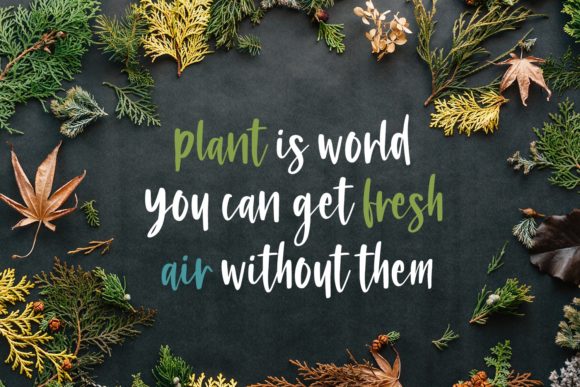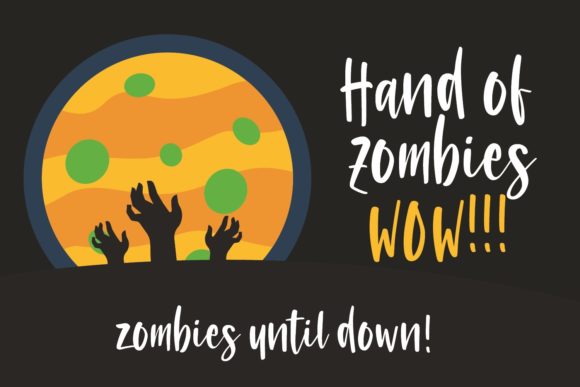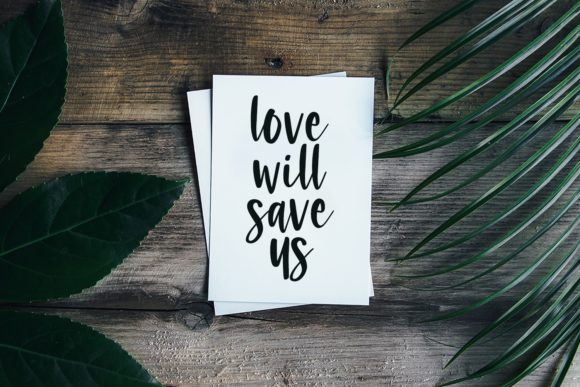
Introduction to Pizza Travel Font
Who hasn’t been inspired by a perfectly crafted design on social media, only to frantically search for the exact font used in the post? I know I have! Recently, I stumbled upon the adorable Pizza Travel Font, and I just couldn’t resist sharing its charm with fellow designers. This free download has been making waves in the design community, and for good reason.
With its high-quality, transparent background, the Pizza Travel Font is a versatile design resource perfect for a wide range of creative projects. Whether you’re working on a new logo, branding materials, or even a fun poster, this cute and friendly font is sure to bring a smile to your clients’ faces.
What sets the Pizza Travel Font apart is its unique feel and look, making it a valuable addition to any designer’s toolkit. Its simplicity and playfulness make it an excellent choice for designers looking to add a personal touch to their projects.
Pizza Travel Font Key Features
- High-quality font design suitable for creative projects, with a unique and stylish aesthetic.
- Transparent background option allows for easy customization and integration into various design elements.
- Perfect for use in travel, adventure, and food-related design projects, including menus, posters, and websites.
- Unique characteristics include a fun, casual feel and a wide range of character styles, making it ideal for creative projects.
Honest Review: Pizza Travel Font
I recently had the opportunity to work with the Pizza Travel Font in one of my creative projects, and I must say it was a game-changer. This font is perfect for anyone looking to add a touch of adventure to their designs.
Pizza Travel Font
The Pizza Travel Font is perfect for:
- Travel blog posts and articles
- Food and restaurant branding
- Adventure and outdoor marketing materials
To get the most out of the Pizza Travel Font, try:
- Experimenting with different font sizes and colors
- Combining the font with other design elements for a unique look
- Using the font in conjunction with a transparent background for a creative effect
Pacifico is a beautiful, elegant font that’s perfect for designers who want to create a sense of relaxation and calmness in their designs. It’s ideal for use in travel-related projects, creative websites, or any project that requires a sense of sophistication.
Compared to Pizza Travel Font, Pacifico Font has a more refined and polished look, making it suitable for designs that require a sense of luxury and high-end feel.